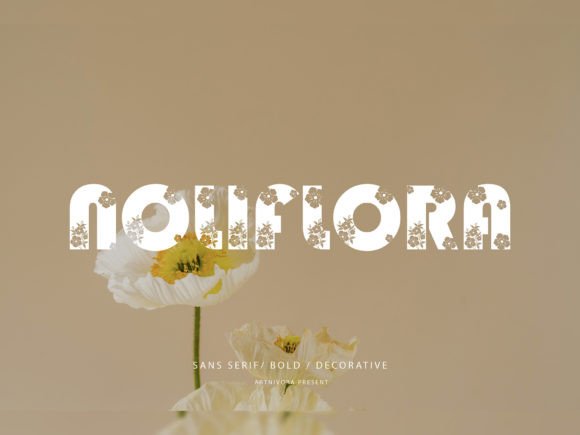
Prepare yourself to be captivated by the allure of Noliflora Font, a masterpiece from the artnivora.std foundry, where nature's charm intertwines harmoniously with the written word. Each letter in this decorative font family is meticulously designed to showcase intricate floral motifs, transforming ordinary text into a captivating garden of elegance.
Noliflora's exquisite design transcends the boundaries of conventional typography, elevating your design projects to new heights of sophistication. Whether you're crafting wedding invitations that blossom with romance or greeting cards that exude warmth and cheer, Noliflora's enchanting presence adds a touch of refinement like no other.
With its versatile nature, Noliflora effortlessly adapts to a diverse range of creative endeavors. Let your imagination flourish as you weave enchanting logos that leave a lasting impression, or design personalized stationery that radiates charm and individuality. Noliflora is the perfect artistic tool to bring your design visions to life, adding a touch of grace and beauty to every project.